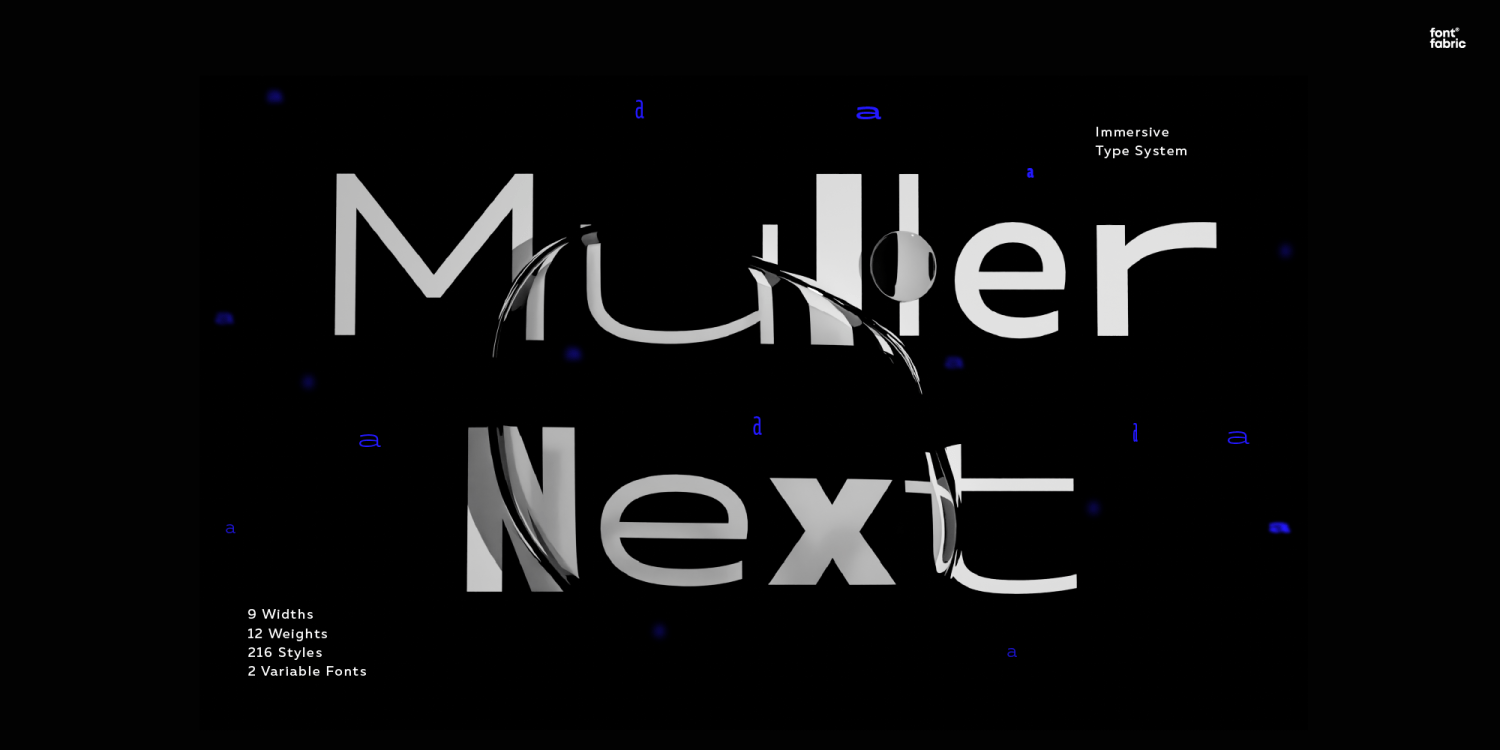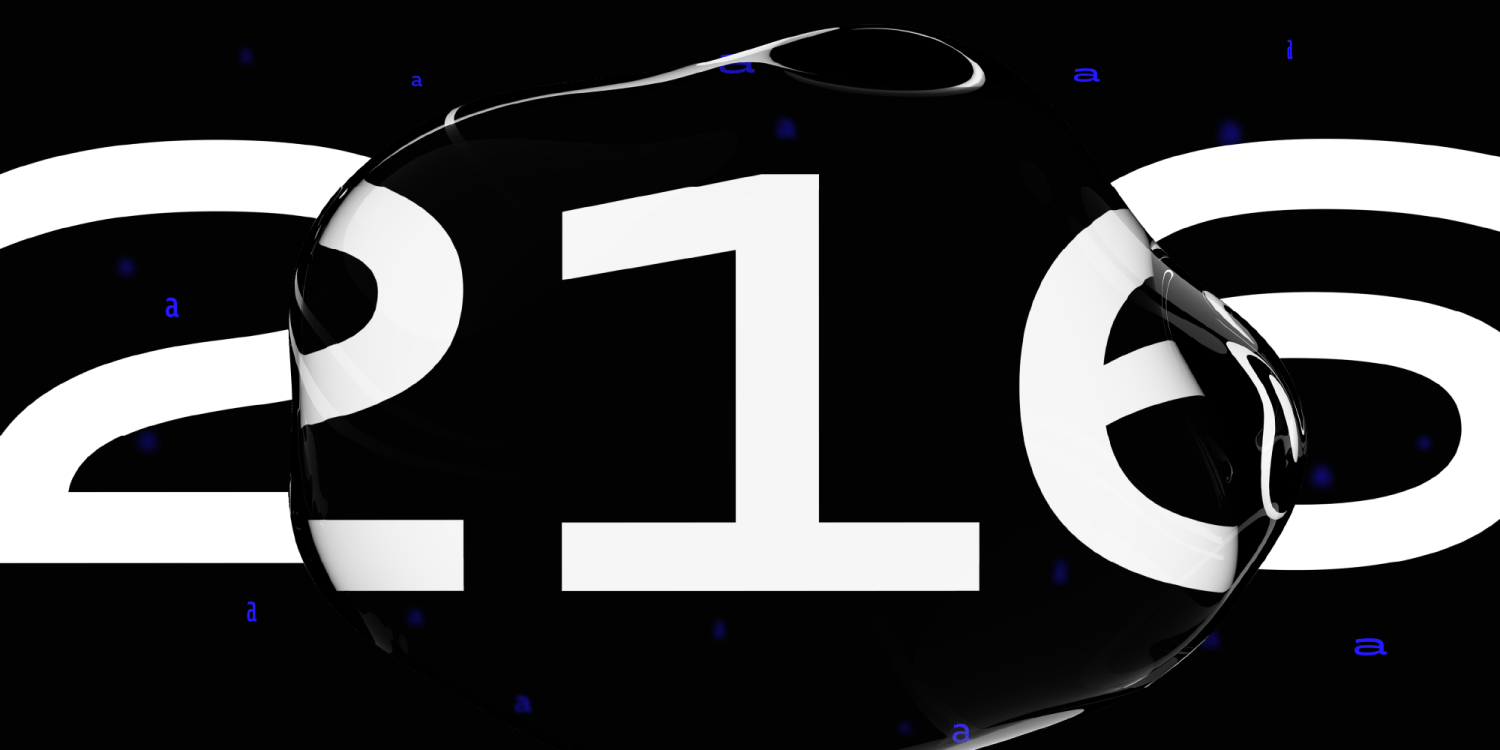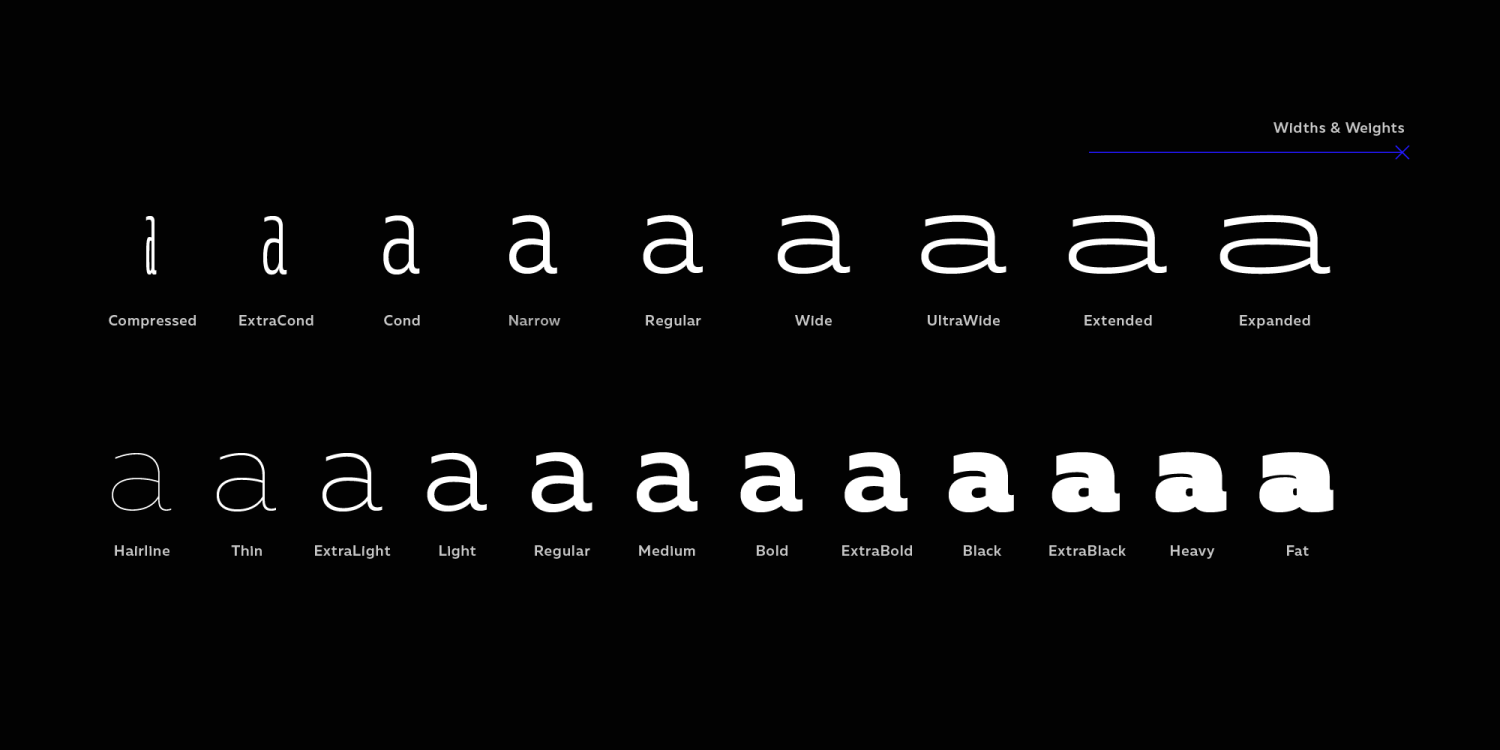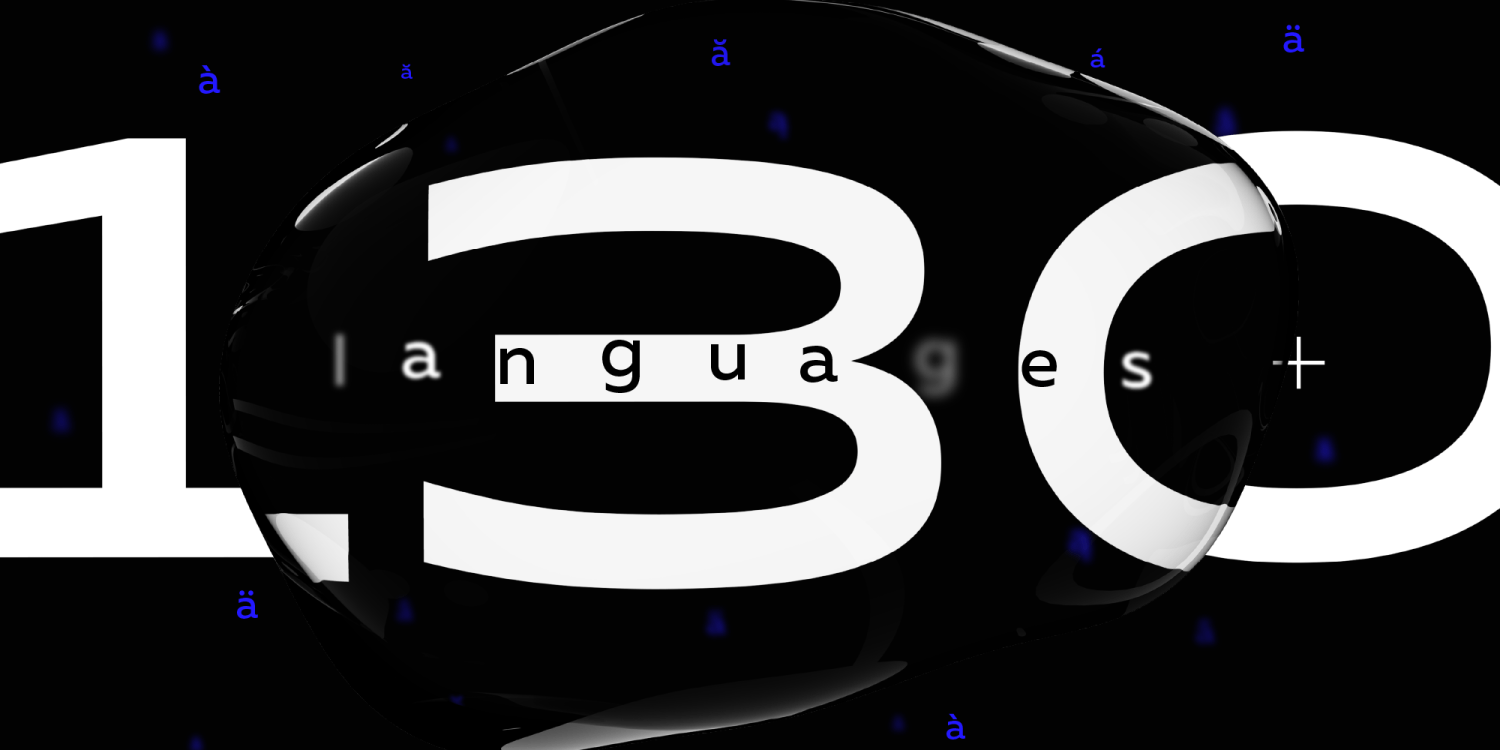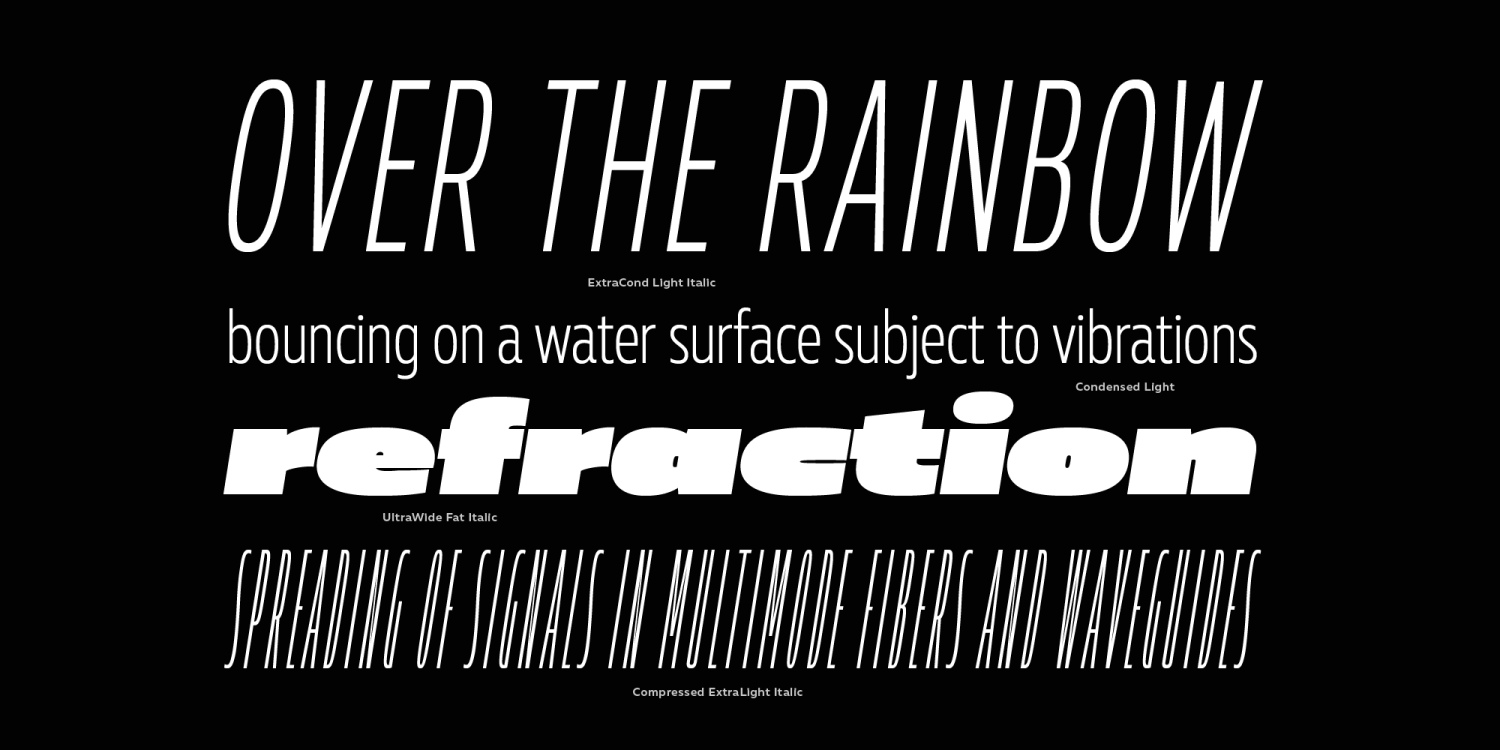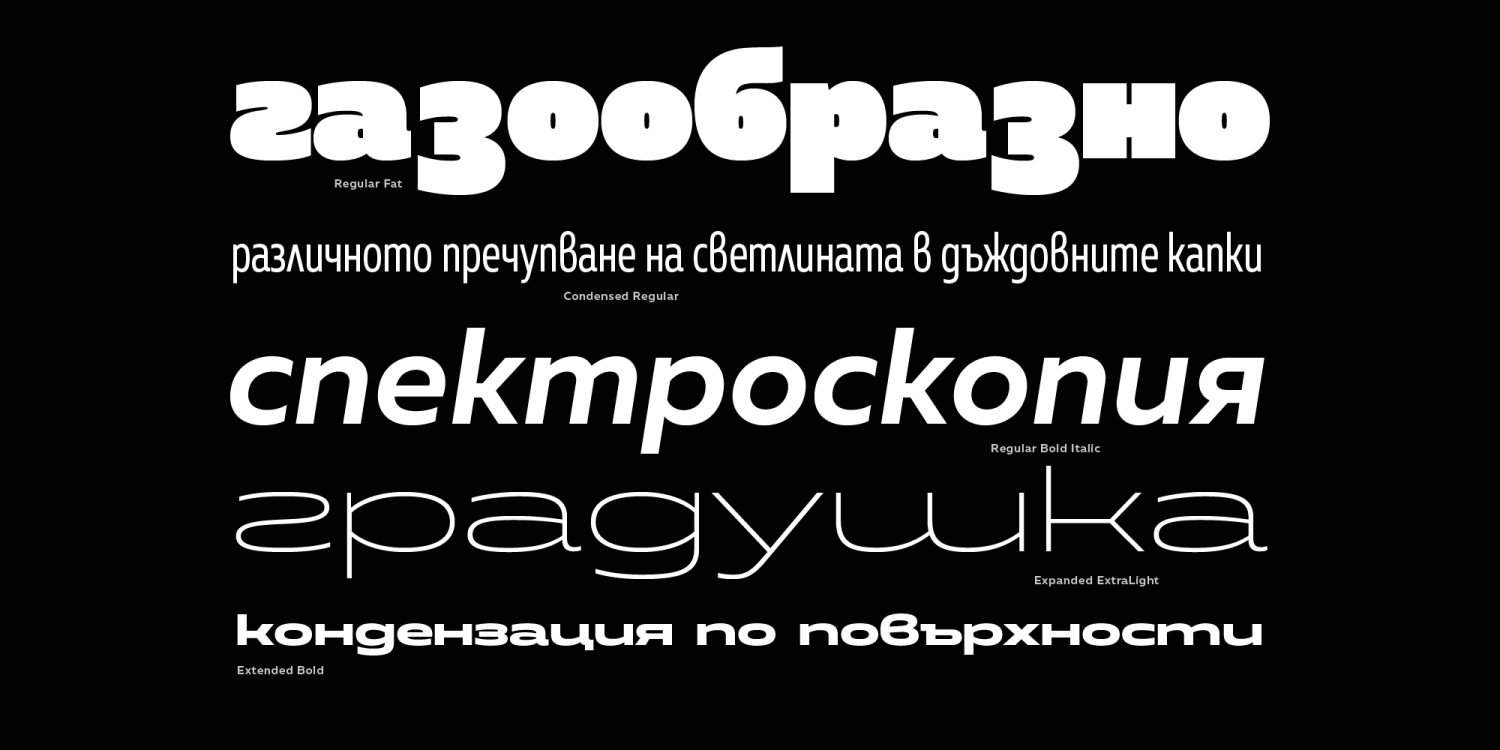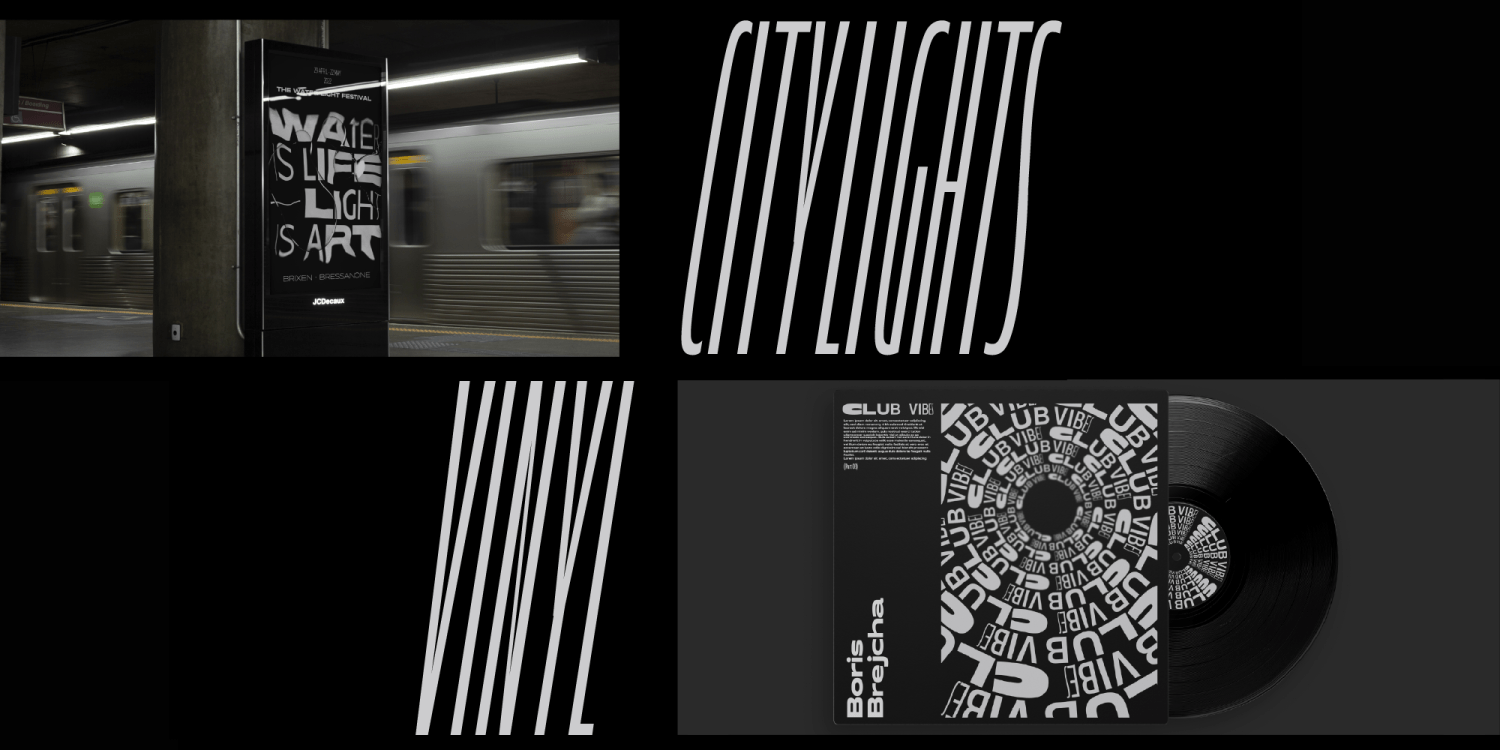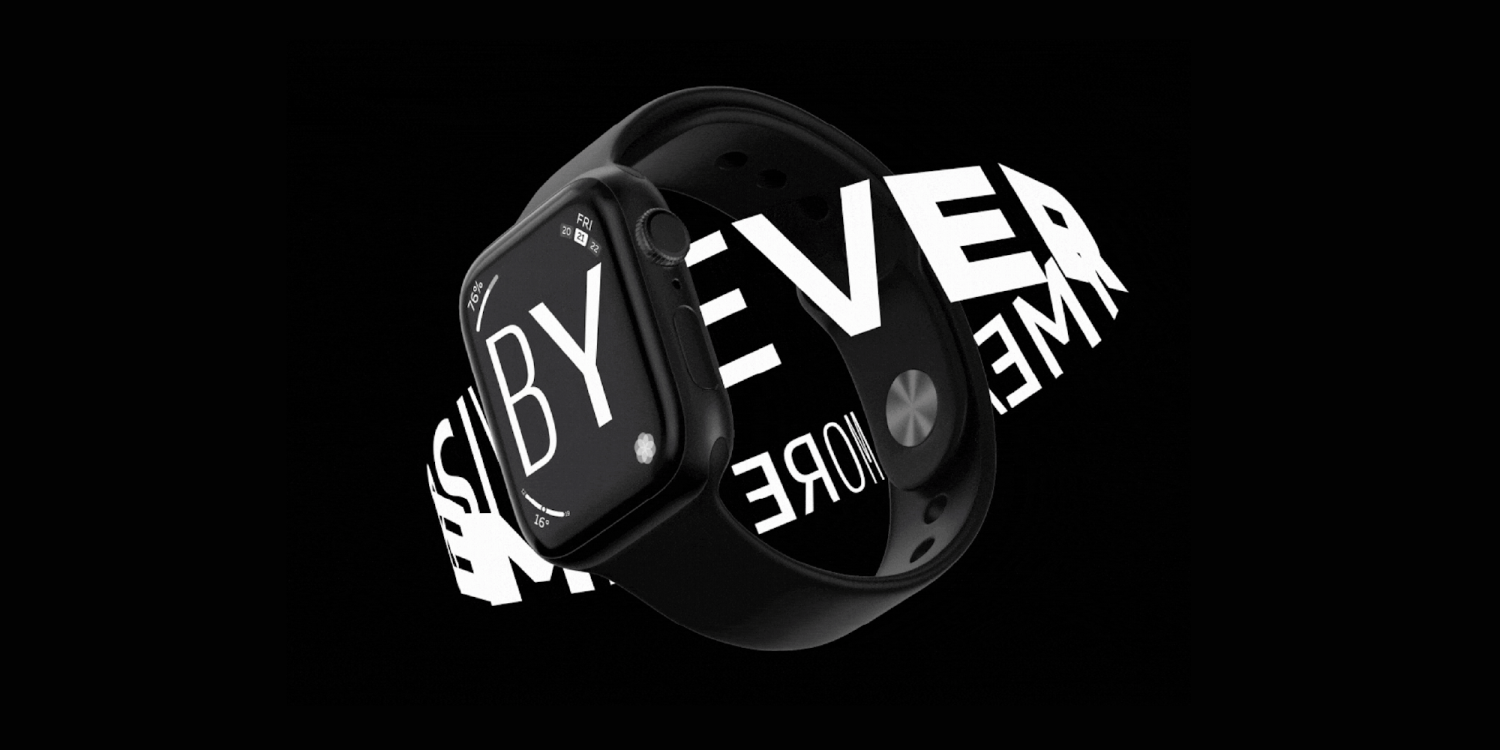
Muller Next
Muller Next is the evolved version of the original Muller, redesigned by Plamen Motev, Leon Hugues, and Radomir Tinkov at Fontfabric. Released in late 2022, it expands the family into a massive type system with 216 styles across nine widths and twelve weights (each with italics), plus two variable fonts. Designed for ultimate typographic flexibility, it supports Latin & Cyrillic across 130+ languages—ideal for everything from UI to editorial design.
Why Choose Muller Next?
Muller Next is a Sans-serif typeface designed for editorial, branding, UI, web, signage, and body text. Its clean geometric forms make it an excellent choice for professional designers requiring a single versatile typeface system for diverse needs.
Whether you're working on responsive UI, editorial layouts, corporate branding, or signage systems, this font provides the following key benefits:
- 216 well-graded styles from extremely compressed to ultra‑expanded
- 2 variable fonts covering weight and width axes for refined typographic control
- Full Latin + Cyrillic support across 130+ languages
- Clean geometric forms with elegant detailing (e.g. subtle ‘a’, curved ‘y’, refined ‘k’, ‘J’, ‘G’)